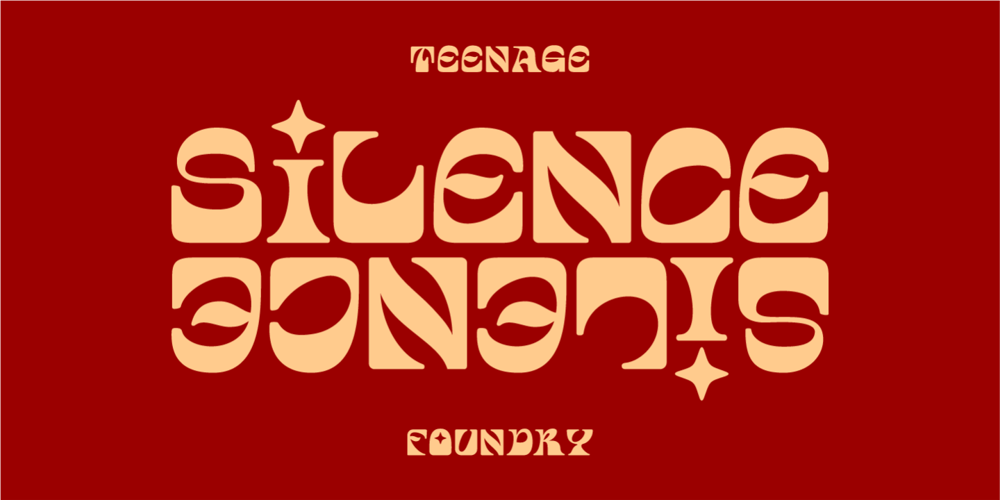
TF Silence Font Family was designed by Miftahul Habib and published by Teenage Foundry. TF Silence contains 2 styles and family package options. TF Silence – The awesome bold display font is back for your design projects. There are 2 styles available (Regular & Outline). Suitable to be applied to clothing designs, posters, logos etc.Features: Uppercase, Lowercase, Numeral, Punctuation & Multilingual.For any questions please contact me 🙂Thanks!